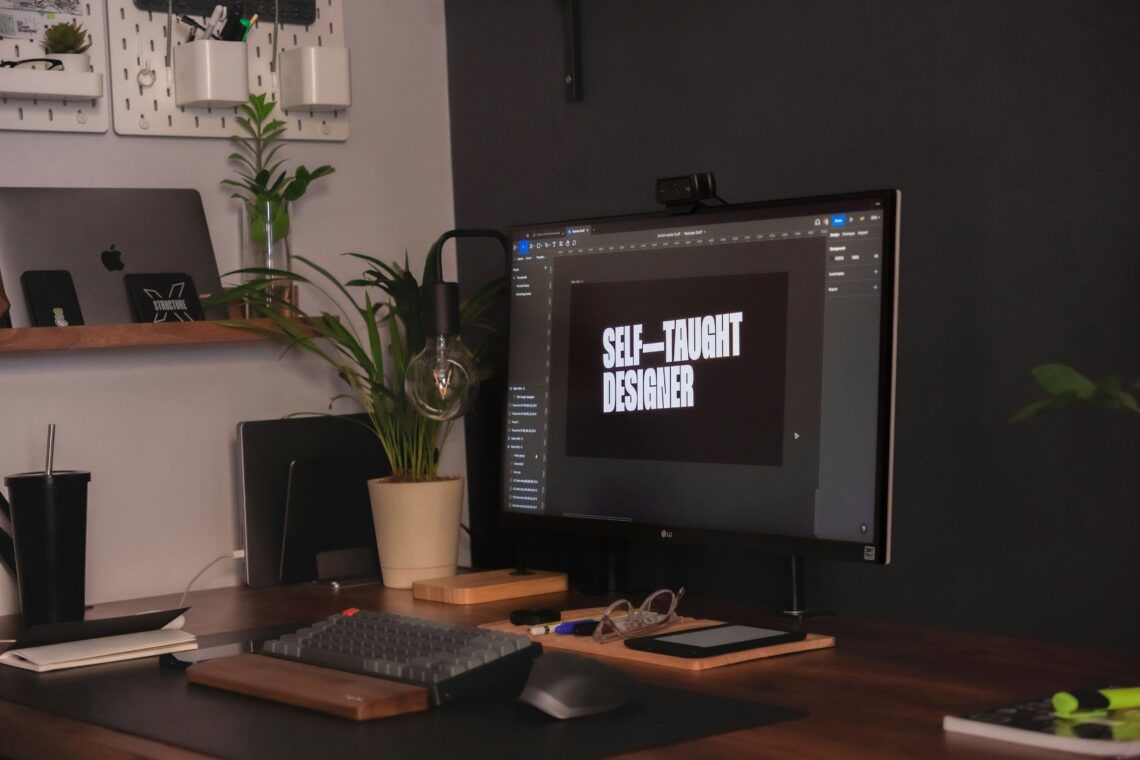
Fun Display Fonts Collection
Display fonts are perfect for making a statement in any DIY craft project, especially when you want your creations to stand out. Whether you’re designing fun invitations for a birthday party, making personalized home décor, or creating a colorful sign for the kids’ playroom, display fonts bring bold, eye-catching elements to your designs. These fonts are designed for large formats and are perfect for projects that need to grab attention.
In this article, we dive into the importance of display fonts for DIY crafts, home organization projects, and kids’ activities. We’ve also curated a list of 20 fun and creative display fonts that are perfect for all kinds of crafting and home design projects. .
20 Top Display Fonts for DIY Crafts and Home Projects
Here are 20 display fonts that are perfect for your DIY projects, home décor, and family-friendly crafts. Whether you’re designing a birthday banner, creating fun home labels, or making personalized gifts, these fonts will add that extra touch of creativity and fun to your designs.
Distrampler Luxury Serif Font
Voltaire Frangela Serif Font
Mythology Luxury Serif Font
Faithfully Luxury Serif Font
Anteroly Modern Sans Serif Font
Capella Bellatrix Sans Serif Display Font
Luxiachy Luxury Serif Font
Waveruder Retro Display Font
Velodrome Display
Neogordon Serif Display Font
Bandonde Serif Font
Moongraz Serif Fonts
Blade Brotherhood Serif Typeface Font
Nineland Modern Geometric Serif Font
Rockbubble Sans Serif Font
Loccomotive Stencil Font
Kampium Serif Font
Beringas Capital Display
MOOR VANTAGE Classical Vintage Font
Bourdeway Decorative Serif Font
What Are Display Fonts?
Display fonts have been around for ages, evolving from the 19th century as printing technology advanced. They are typically larger, bolder, and more decorative than standard fonts, making them perfect for projects that require a visual impact. Whether you’re creating playful posters, vibrant party invitations, or fun home décor pieces, display fonts can add personality and flair to your projects.
Unlike standard fonts, display font come in many styles, including serif, sans-serif, and script. They’re ideal for DIY projects like creating personalized gifts, making educational signs, or adding a creative touch to your home décor.
Why Use Display Fonts in Your Craft Projects?
When it comes to DIY crafts and home décor, display fonts are essential for grabbing attention and setting the right mood. Whether you’re making greeting cards, designing party decorations, or adding labels to home organization projects, display fonts elevate your design, making it pop. These fonts help communicate your message and theme clearly, whether you’re crafting a fun kids’ party invite or creating a bold sign for a new kitchen project.
As Samantha Cullen said:
“Fonts can make or break your project, and choosing the right one — that invokes your branding or message, draws your viewer in and invites them to discover more about what you have to show them — is the best thing you can do for your project.”
In other words, choosing the right display font can elevate your DIY craft projects, ensuring they stand out and make a lasting impression.
Conclusion
Display fonts are essential for making your DIY projects and home décor stand out. Whether you’re creating a playful greeting card, designing a fun party invitation, or making bold signs for your home, these display fonts will help you add personality and creativity to your work. Explore these 20 top display fonts and take your next crafting or home design project to the next level!